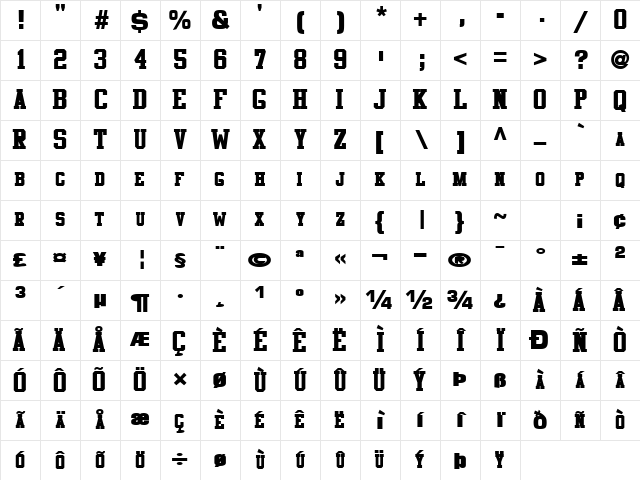
CosmicFlushText8 Bold Free Font
CosmicFlushText8 Bold
Design Context for CosmicFlushText8
CosmicFlushText8 is a composed and adaptable typeface that performs quietly and consistently across a wide range of design contexts. Its bold stroke weight gives it real presence on the page.
Pro Tip: Use CosmicFlushText8 in both headline and body roles to test its range before committing to a single application.